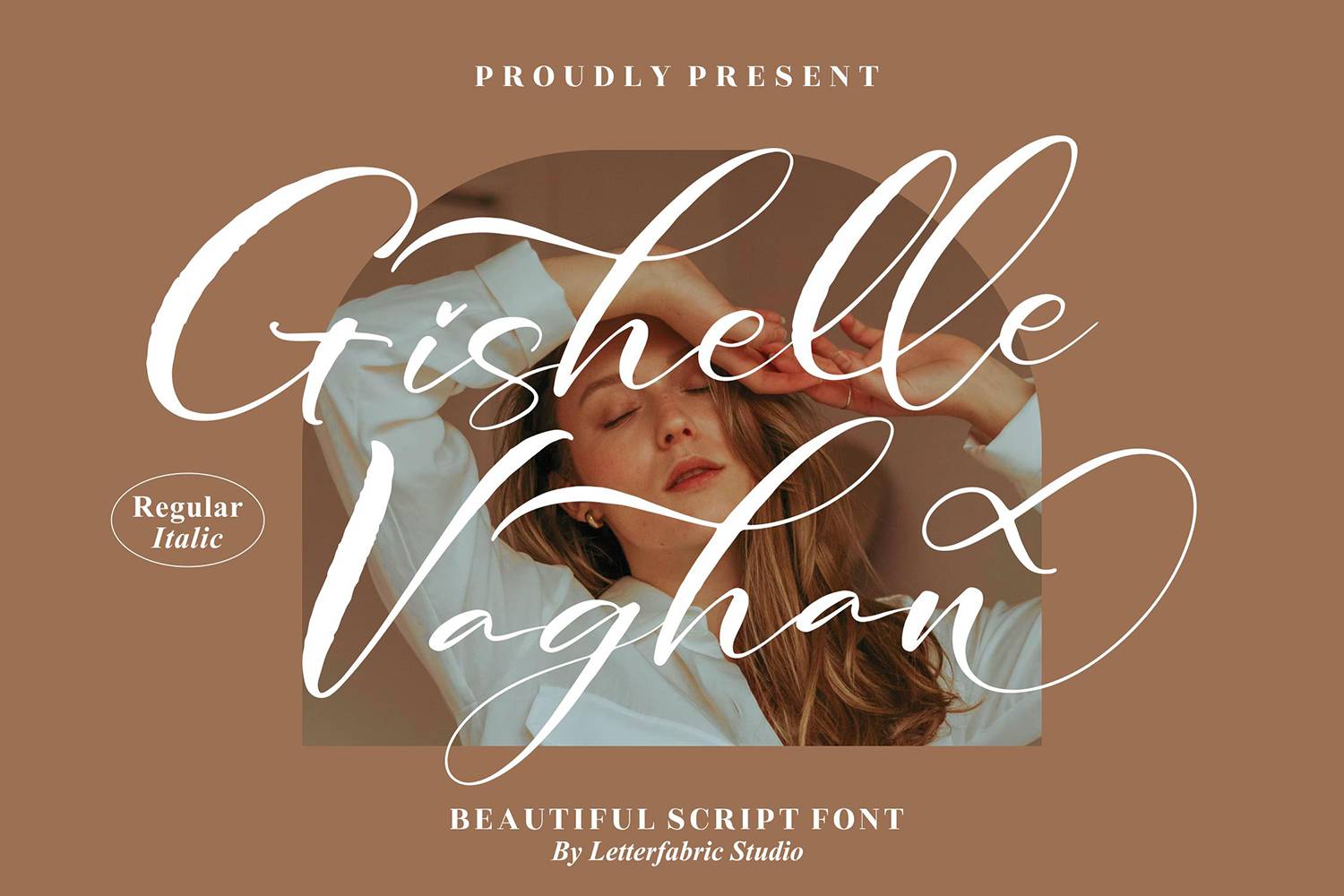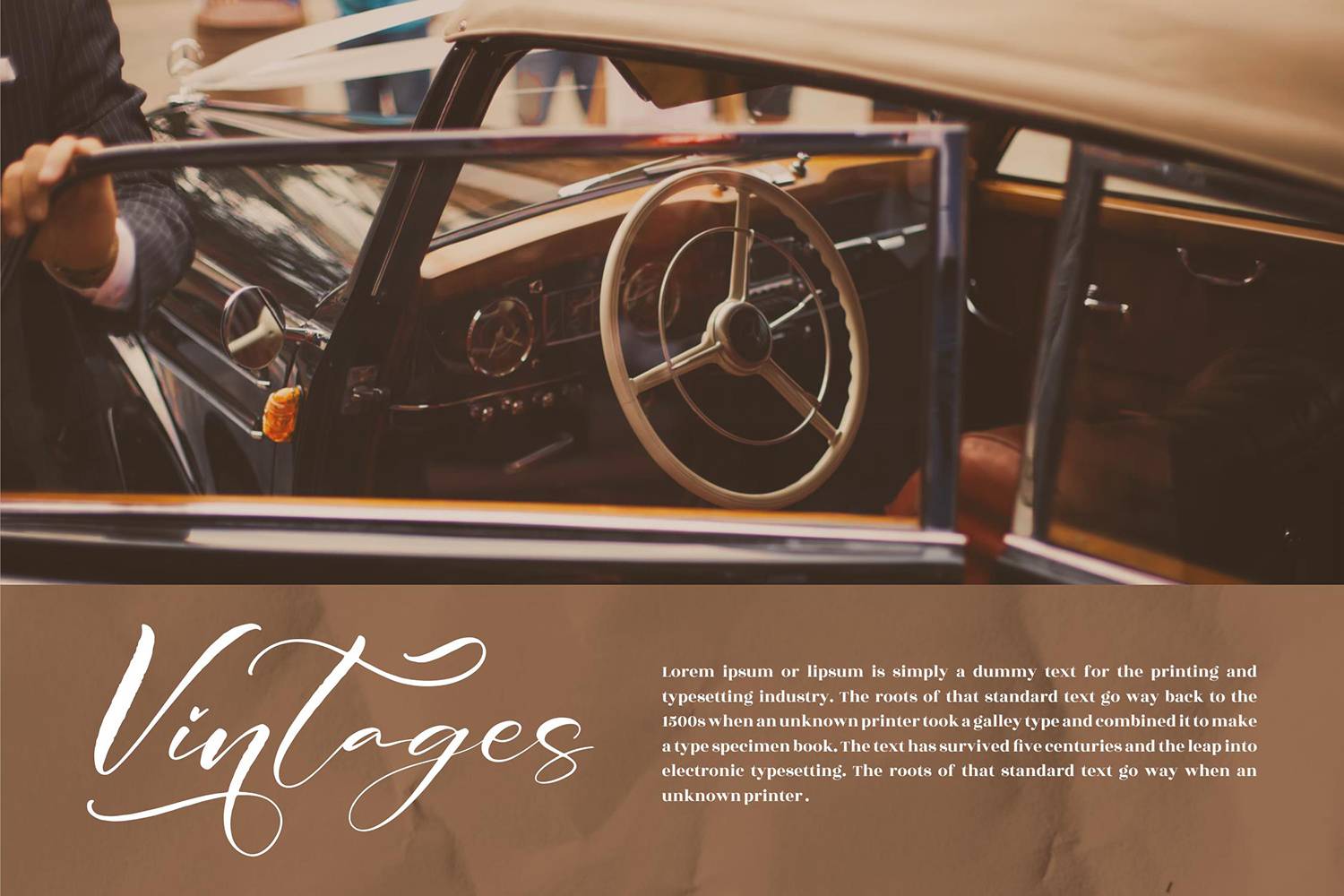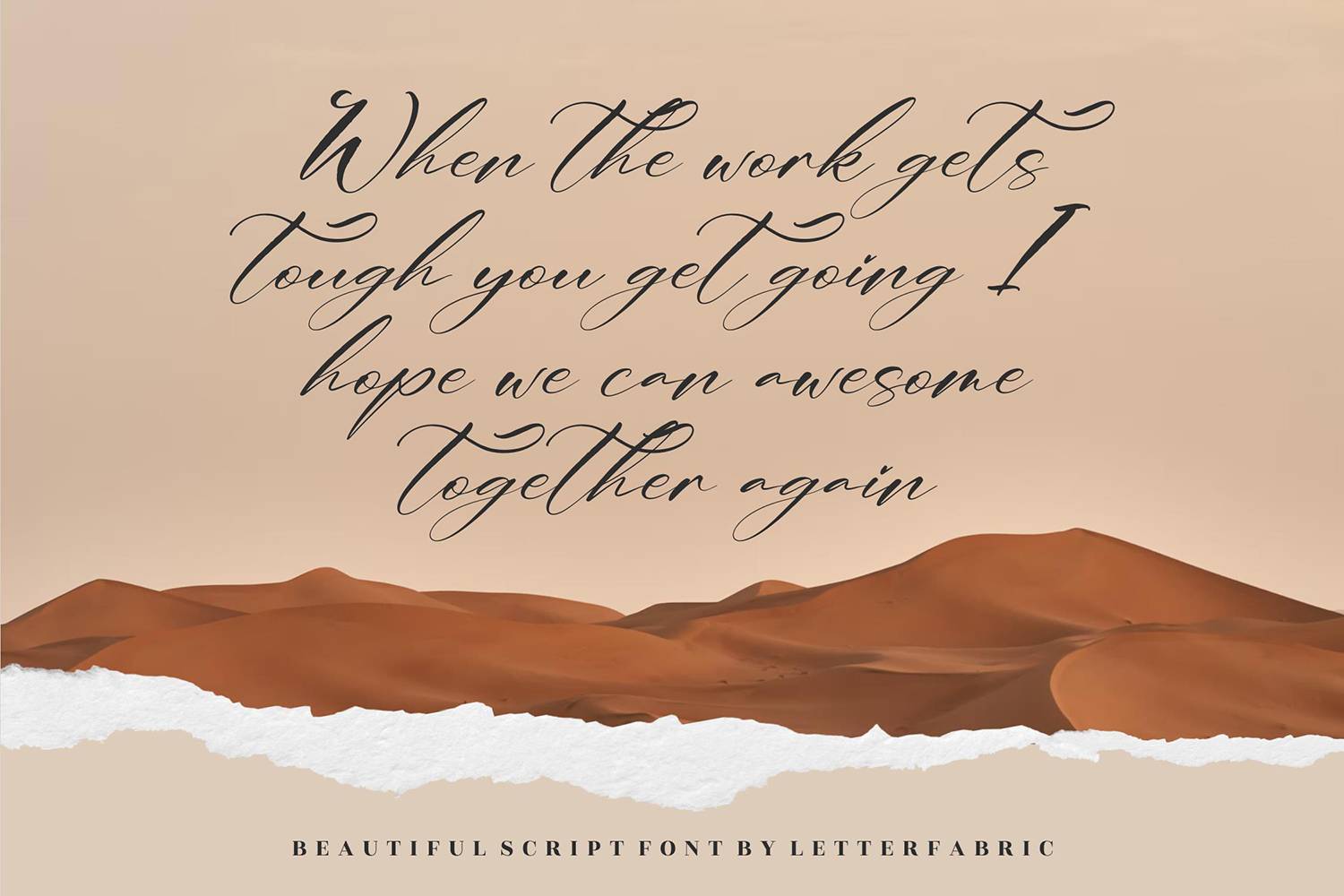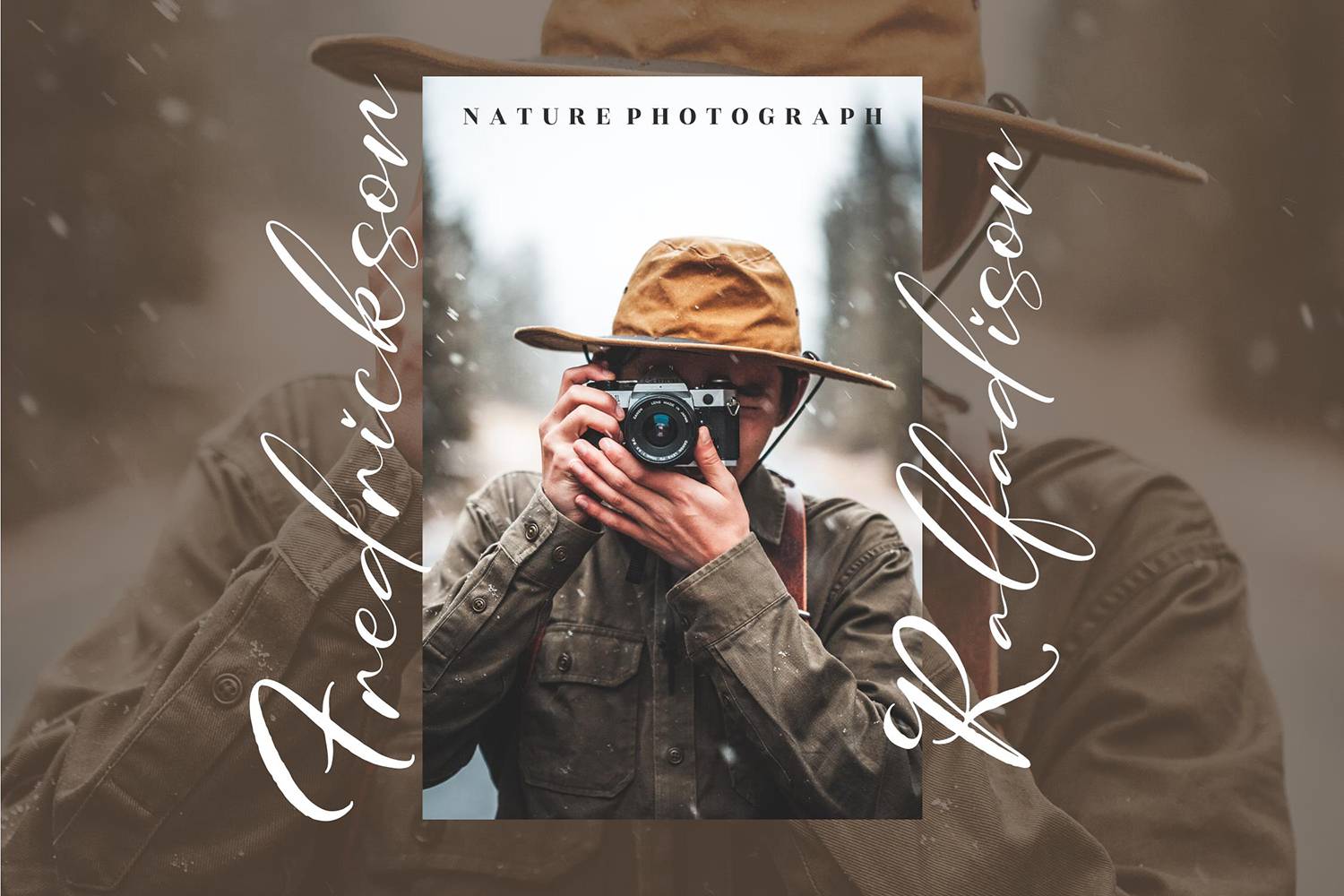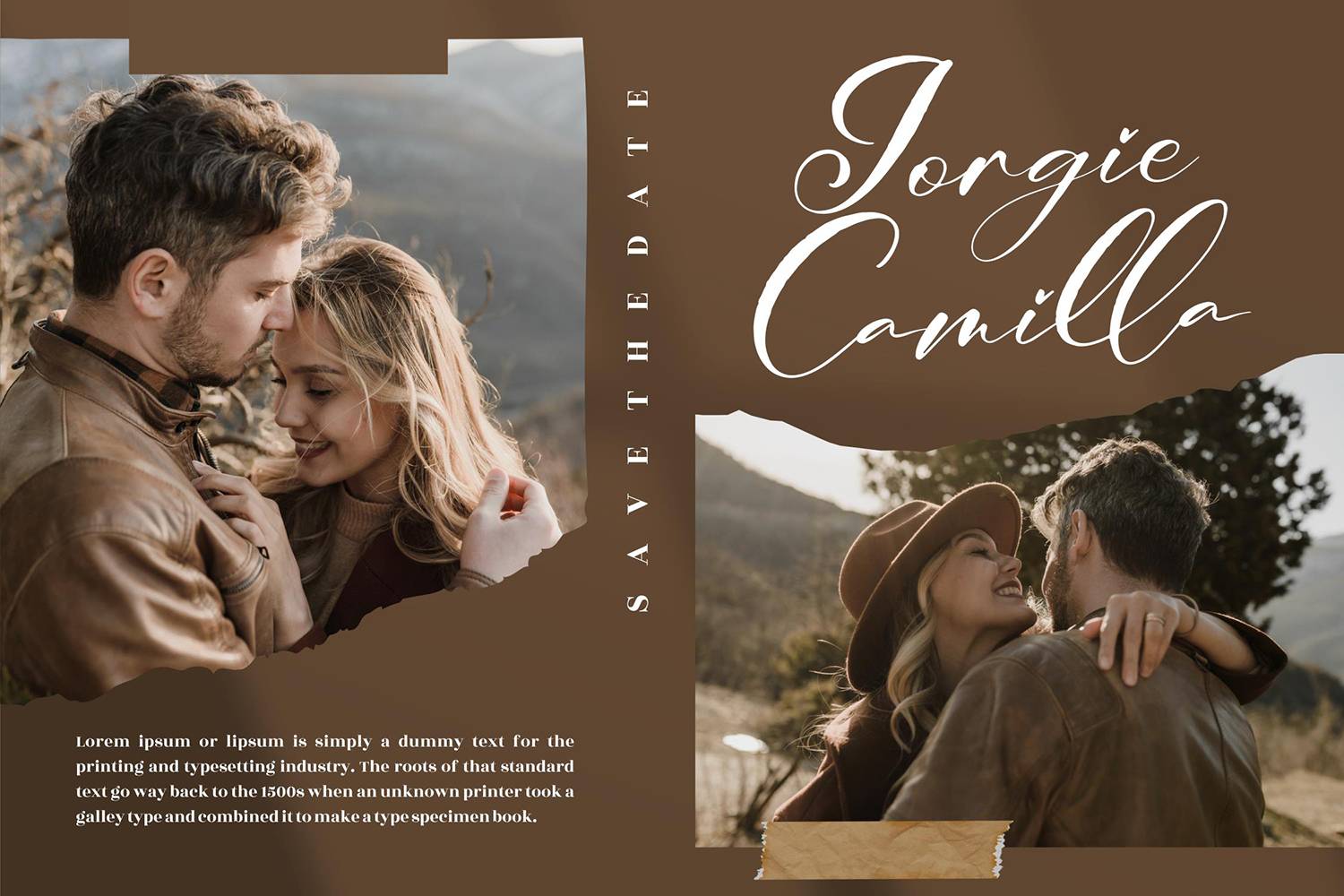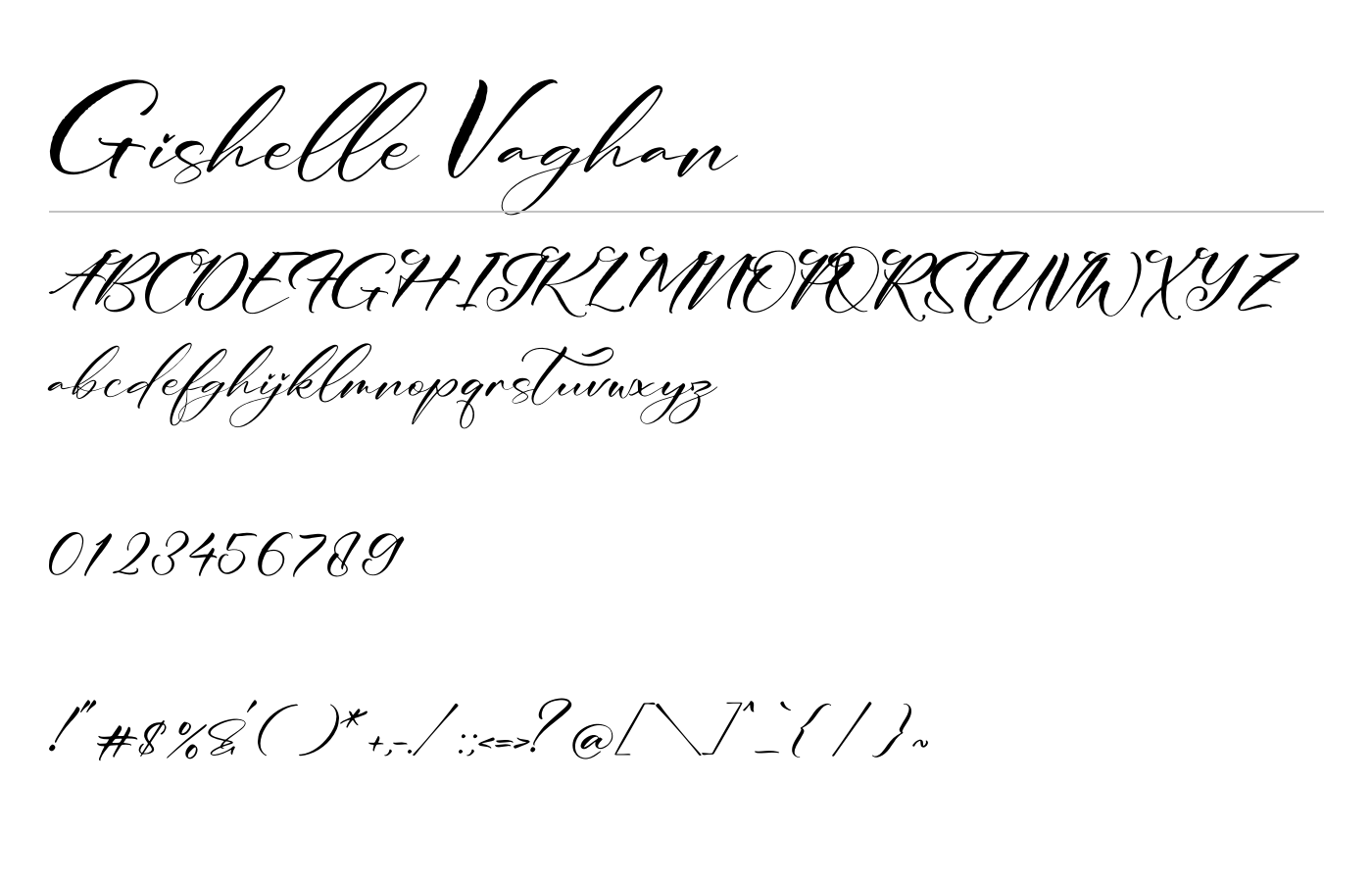
Gishelle Vaghan is an elegant script font featuring delicate, flowing strokes with a graceful, handwritten style. Its slender, high-contrast letterforms and refined curves create a sophisticated and romantic feel, making it ideal for luxury branding, invitations, and fashion design where a touch of personal elegance is desired. This font works beautifully in headlines and decorative text, lending a stylish and artistic flair to any project.
Gishelle Vaghan Font
About Gishelle Vaghan Font